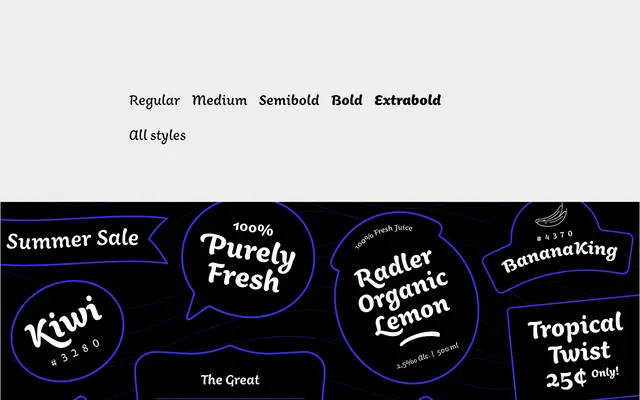
Aisha Latin
A calligraphic Latin typeface by Titus Nemeth, drawn as a companion to Aisha Arabic and shaped by Maghrebi brush-pen lettering traditions.
Developed as the Latin counterpart to Aisha Arabic, the design direction here ran from the Arabic to the Roman rather than the usual reverse, with Nemeth drawing on 19th-century French-cut Arabic foundry type as a starting point. The five weights from Regular to Extrabold are available as a variable font, and the family is packed with contextual alternates, stylistic sets, swash variants with variable-length control, and a full complement of figures and fractions. The result is a typeface with genuine personality that works across display headings, editorial layouts and long-form text alike.
Aisha Latin is rooted in the free, dynamic curves of brush-pen calligraphy from the Maghreb tradition, giving it a calligraphic serif character with expressive, informal letterforms that sit between text and display use.